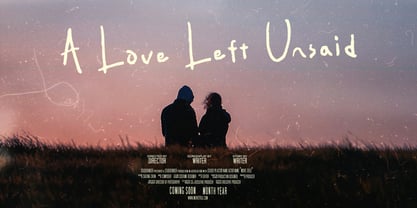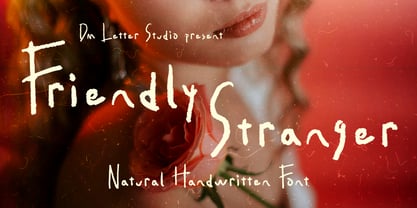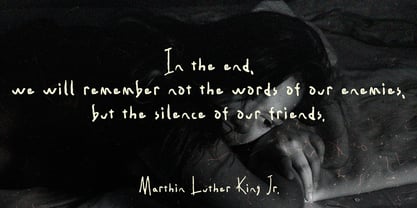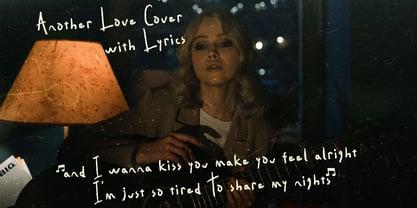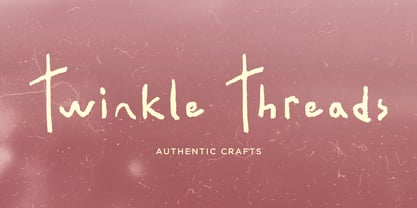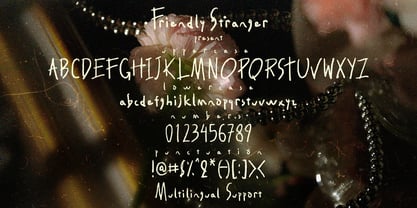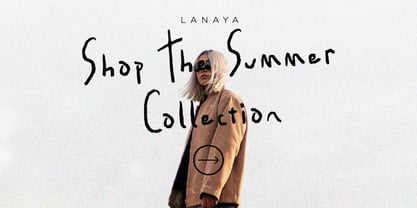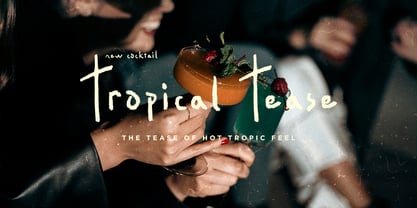
Friendly Stranger
Friendly Stranger – Natural Handwritten Font
Whispers of elegance in every stroke.
Introducing Friendly Stranger, a natural handwritten font that blends vintage charm with modern elegance. Crafted by DM Letter Studio, this typeface radiates subtle warmth, making it a standout choice for anyone looking to balance luxury aesthetics with a soft, personal touch.
Each letter carries the nuance of imperfect brush pressure, evoking the authenticity of hand lettering while remaining clean and polished. This font is ideal for corporate branding, logo design, and modern vintage packaging that calls for subtle sophistication with a human feel.
Whether you’re designing wedding invites, high-end brand collateral, or an elegant logo for a boutique or luxury brand, Friendly Stranger makes your words feel intimate and unforgettable.
Perfect For:
• Corporate identity with a personal twist
• Luxury branding with soft handwritten tones
• Elegant logo designs for beauty, fashion, or lifestyle brands
• Vintage-inspired packaging or editorial layouts
• Greeting cards, wedding stationery, book titles, journals, or story-driven marketing campaigns
• Natural, organic handwriting feel